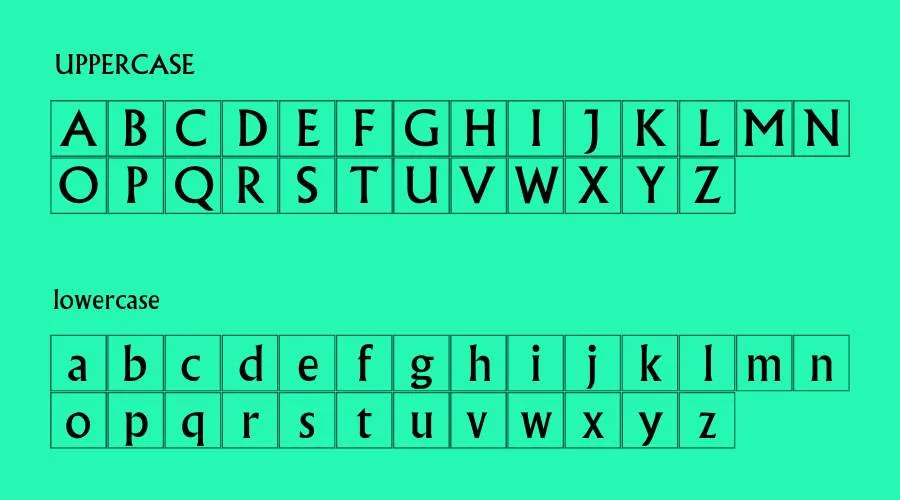
About Albertus Font
When typographic excellence matters most, Albertus Font delivers through its thoughtful blend of ink traps and visual impact. Specially crafted for engineering drawings, it offers the legibility and brand power required for sophisticated design work. Every detail serves a purpose.
The character set showcases thoughtful details like brush influence alongside functional word marks. This proves especially valuable in colophons, where reproduction fidelity directly influences results. Particular attention was paid to stem weight and regulatory compliance during development.